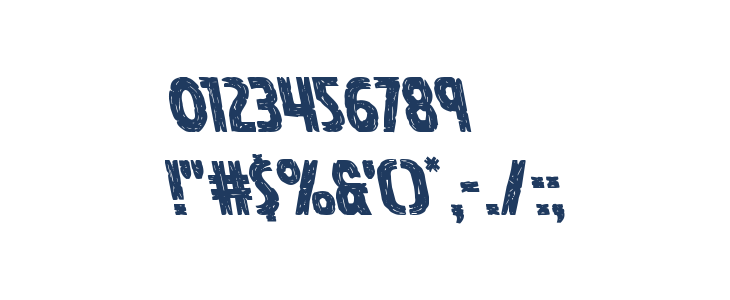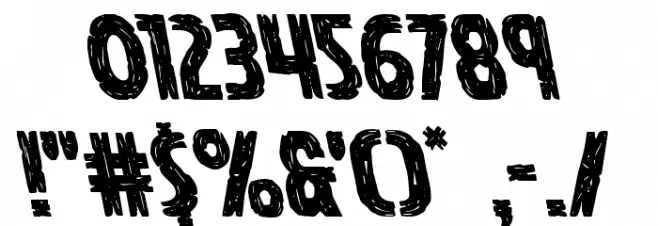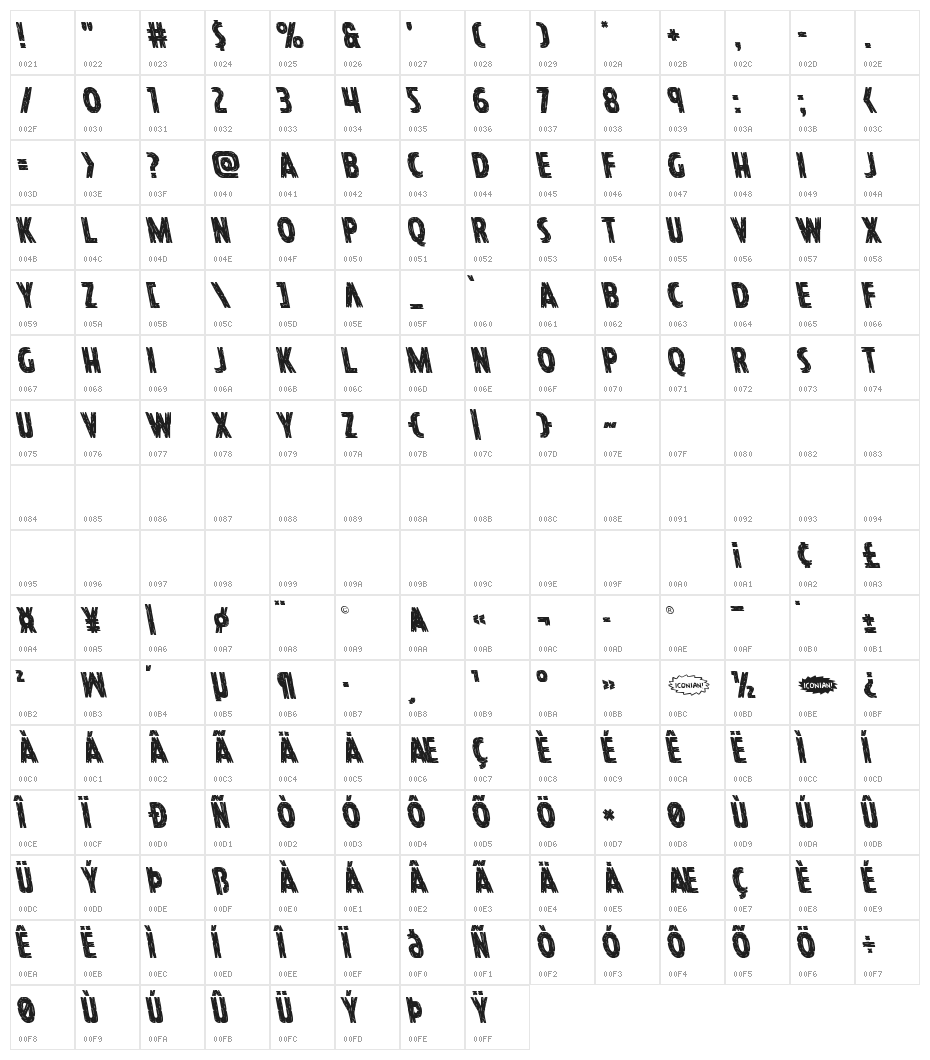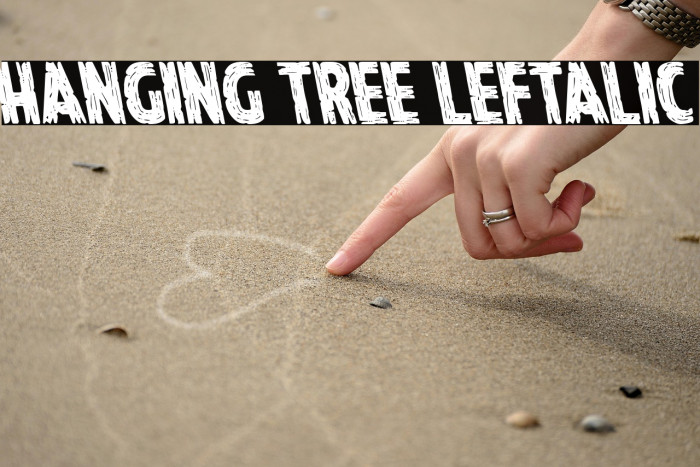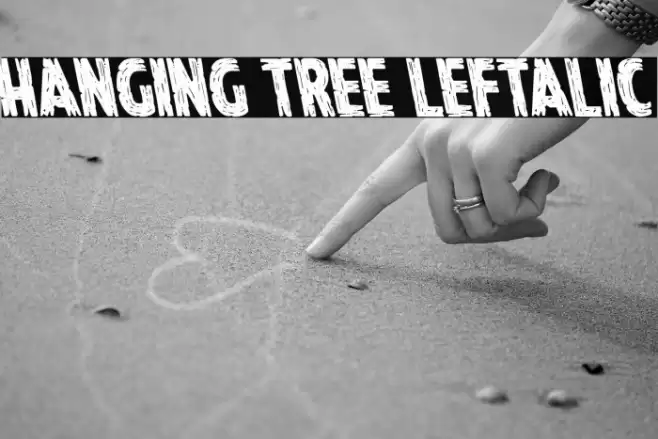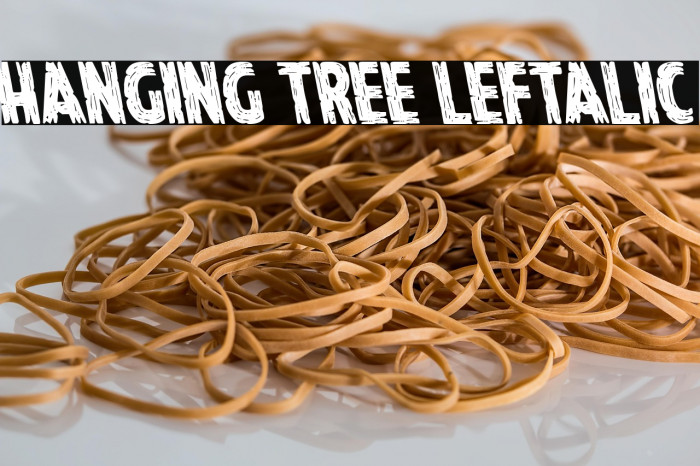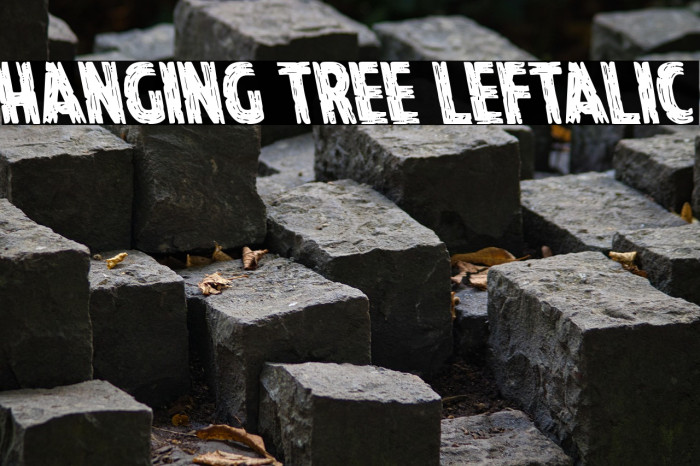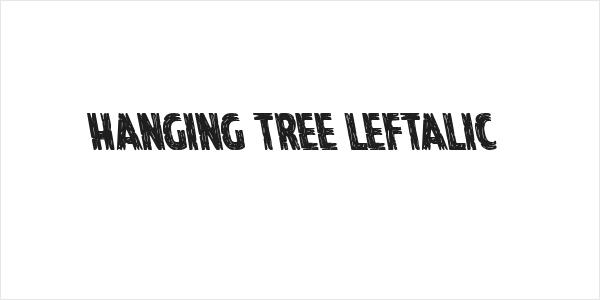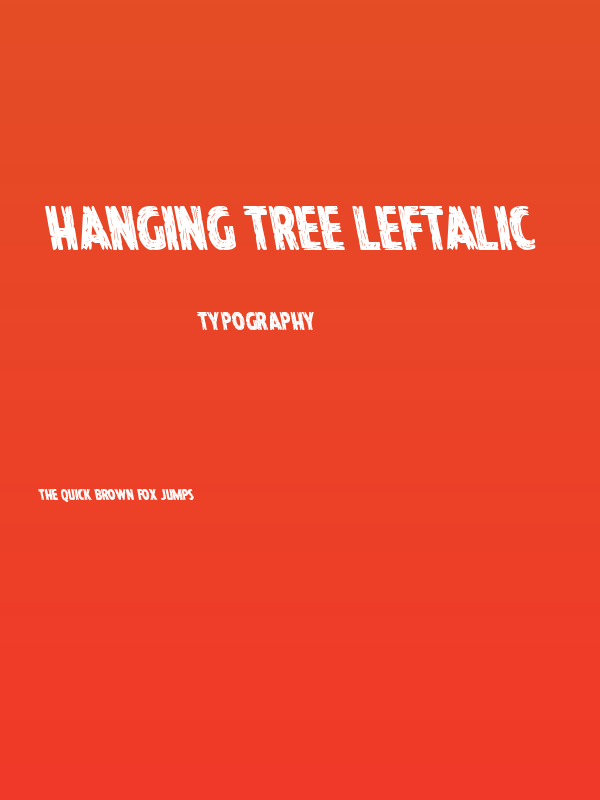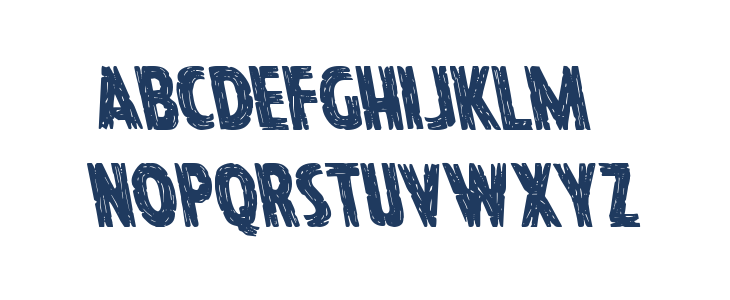
Hanging Tree Leftalic Font
Hanging Tree Leftalic Description
This font features a bold, distressed style with a hand-drawn appearance. The characters are thick and uneven, giving a rugged and edgy feel. The strokes are irregular, with a rough texture that suggests a sense of movement and energy. This font is highly decorative, making it ideal for eye-catching designs. The uppercase and lowercase letters maintain a consistent style, while the numbers and special characters complement the overall aesthetic. Its unique appearance makes it stand out, perfect for projects that require a strong visual impact.
| Proposed Projects | Ideal for posters, album covers, branding, and any project needing a bold, artistic touch. |